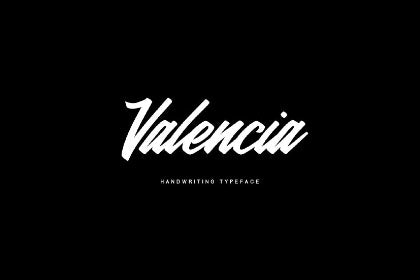
Featuring a free valencia calligraphy typeface. Free Design Resources has created this amazing and beautiful free font. Showcase your designs like a graphic design pro by adding a new touch with this cool font.